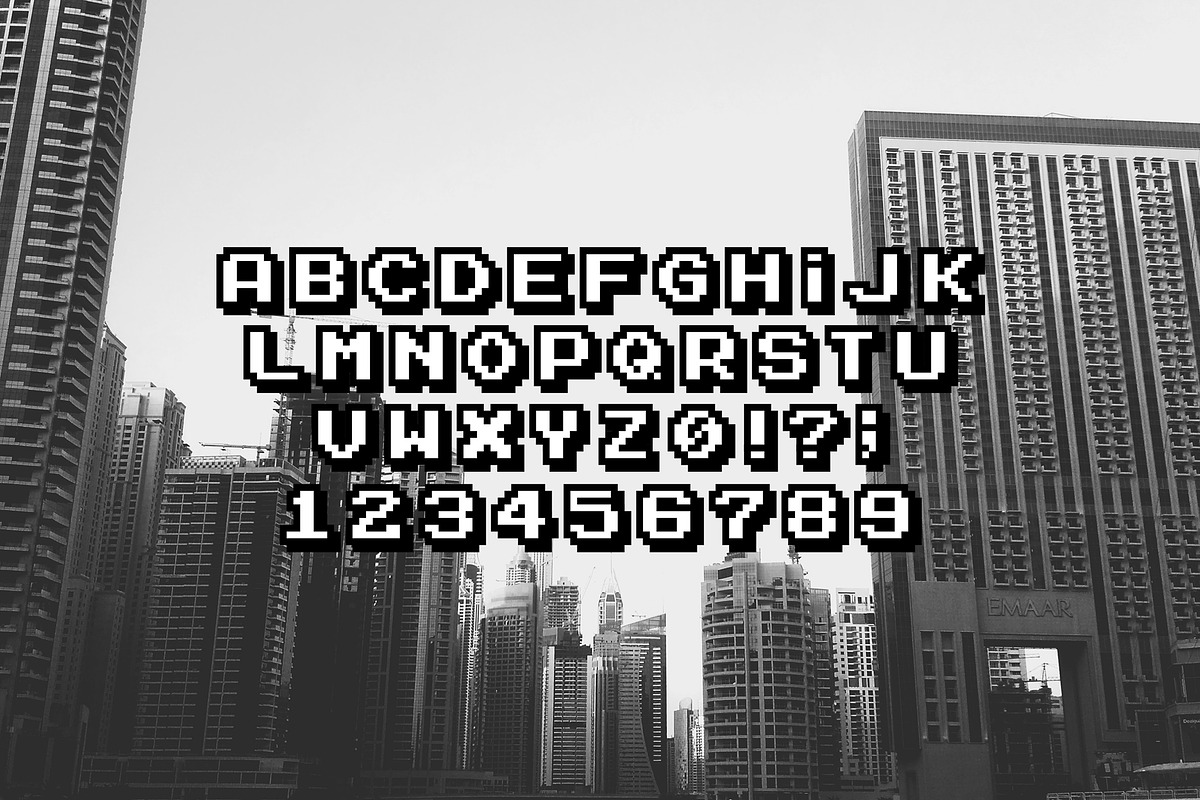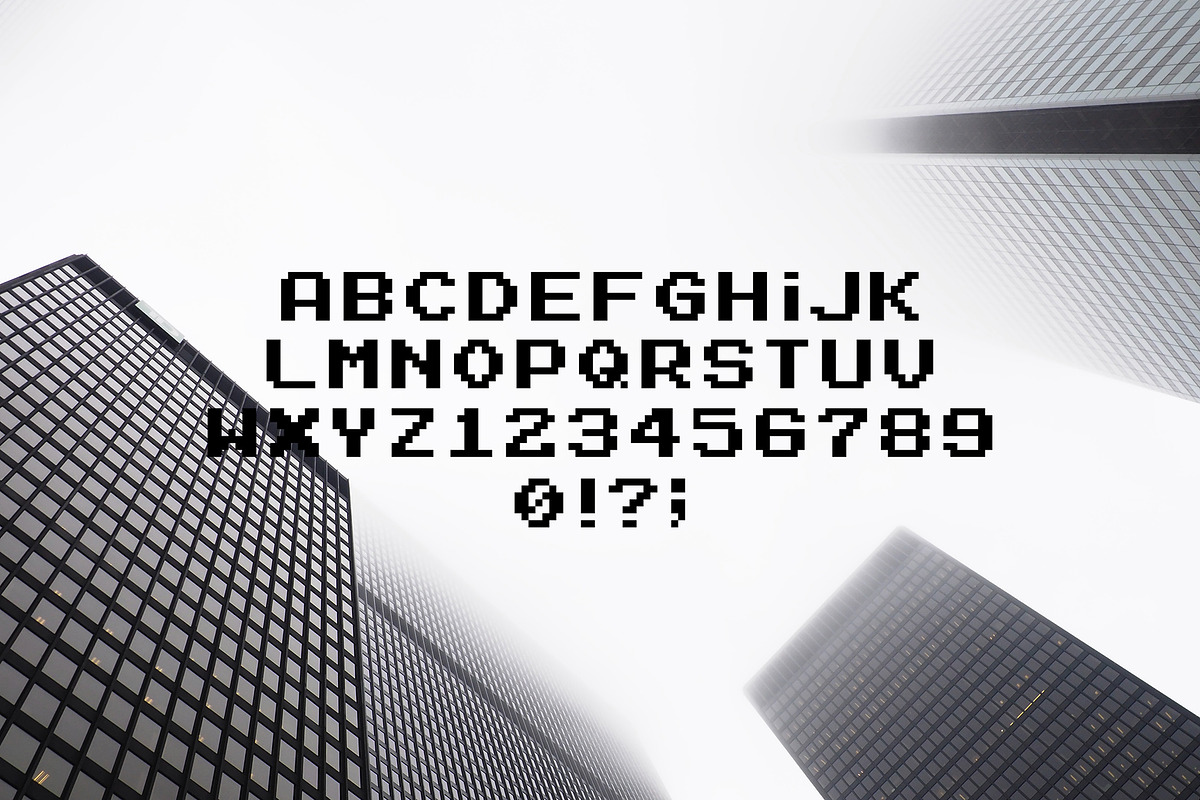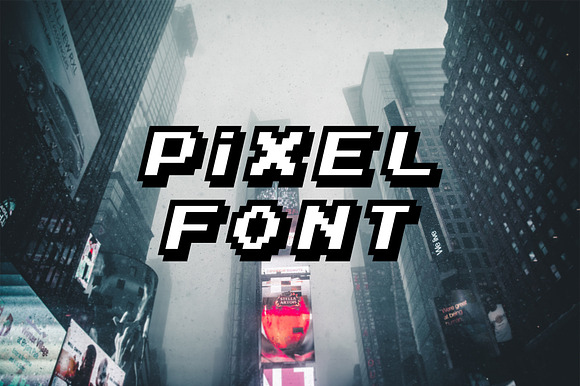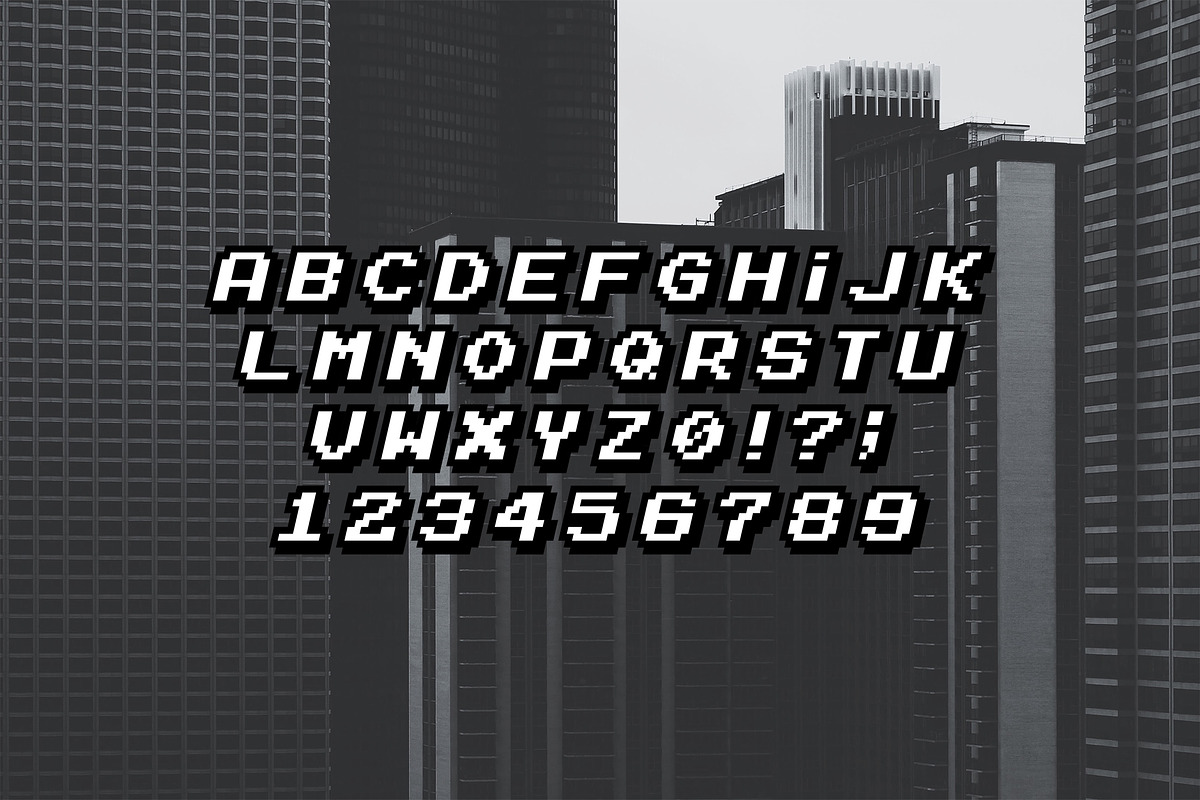
Pixel font / 8-bit fonts.
Pixel fonts from squares, 8 bit, 16 bit letters and numbers for your design. Three different fonts provide an opportunity to choose a more suitable design, font with a stroke, a slanted font, and a regular font in a package, all objects are made in vector format that can be used in any size without loss of quality.